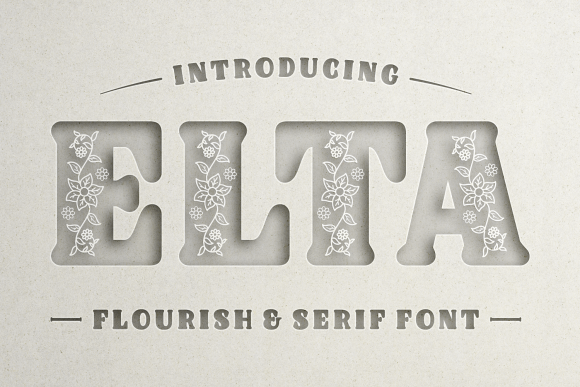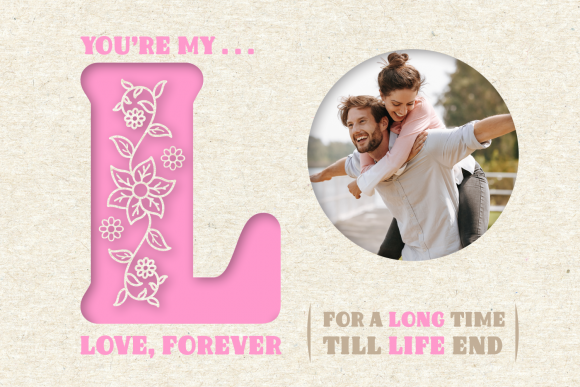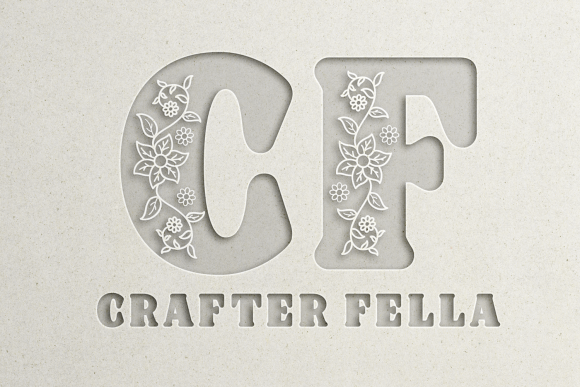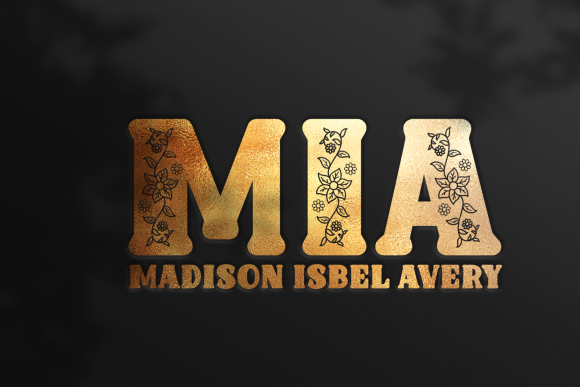
Elta Font: Floral Serif for Wedding Invitations & Logo Design
About the Elta Font
Unleash your creativity with Elta Font, a versatile font perfect for a wide range of applications. Elta is a chunky, serif font duo that has an embellished floral font style that will add beautiful detail to any of your design projects.
Elta’s bold, embellished serifs make it ideal for headlines, short text blocks on posters, or branding elements requiring a touch of vintage elegance. It excels in packaging design where its detailed flourishes can add a premium feel. However, its chunky nature makes it unsuitable for body text or UI elements where readability is paramount; the intricate detailing would hinder legibility in smaller sizes or continuous text.
Pair Elta with a clean sans-serif like Open Sans for a balanced contrast, or a modern geometric sans-serif like Futura for a more contemporary feel. A script font with simpler strokes could also create an interesting contrast, adding a layer of sophistication without competing with Elta’s ornate details.
Its overall personality is best described as elegant yet bold; sophisticated but approachable. Brands seeking a vintage-inspired yet modern aesthetic will find Elta a strong visual asset.
Elta Font Usage Examples
Elta Font Example